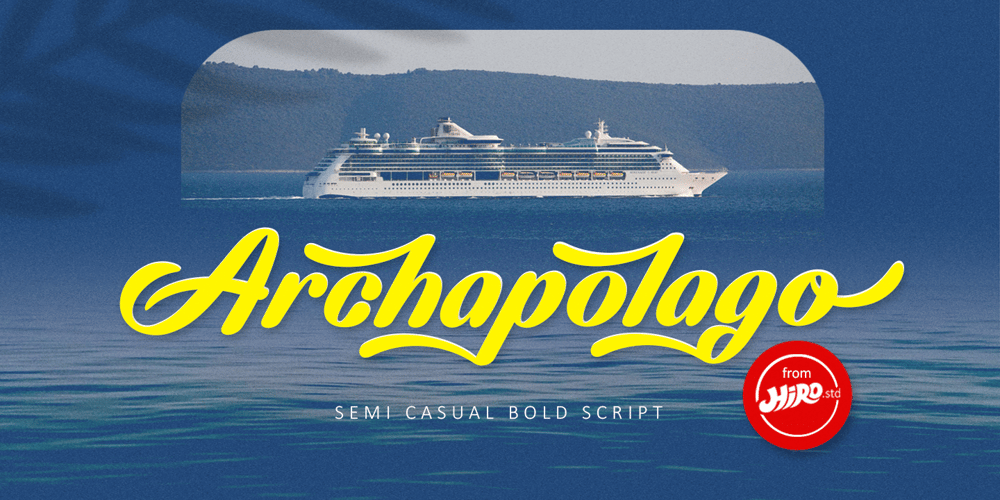
Archapolago Font Family was designed by Chairul Ashar and published by HIRO.std. Archapolago contains 1 styles and family package options. Archapelago is semi casual bold scriptThis font describes about boldy, stylist, fun and elegant, catchy, dynamic, sporty, readable, easy to use FEATURES- Support Opentype Features- Stylistic alternates- Swash alternates- Numbering and Punctuations- PUA Encoded Characters- Multilingual Support- Works on PC or MacUSEArchapelago works great in any logotype, magazines, apparel, poster, advertisements, product packaging, product designs, label, and any projects that need semi casual and bold style.Enjoy using!Thanks.HIRO.std